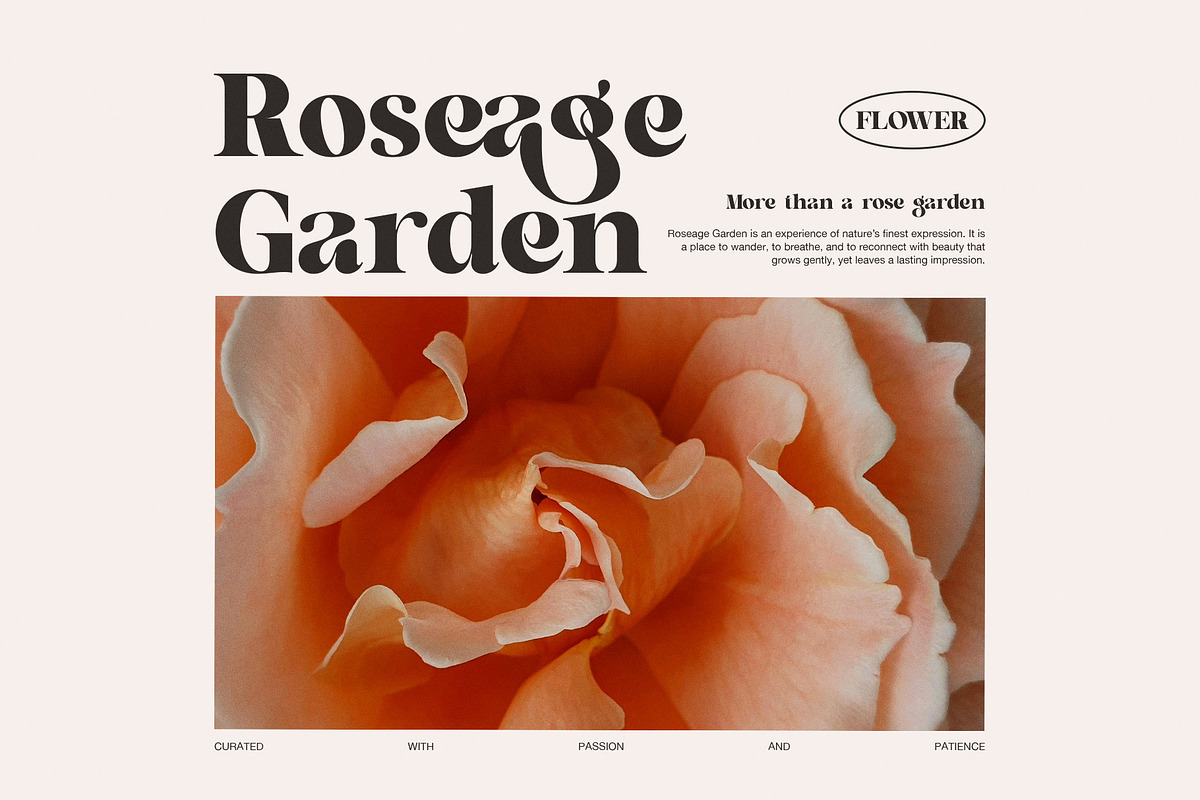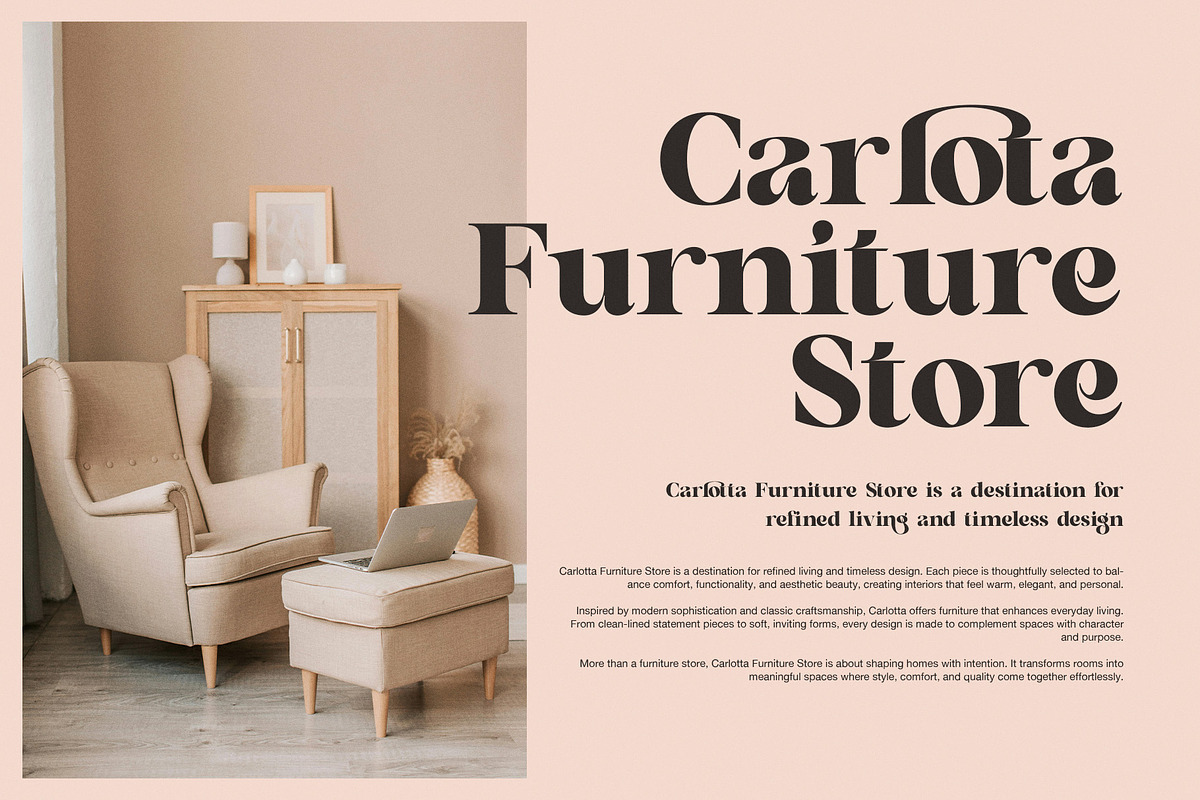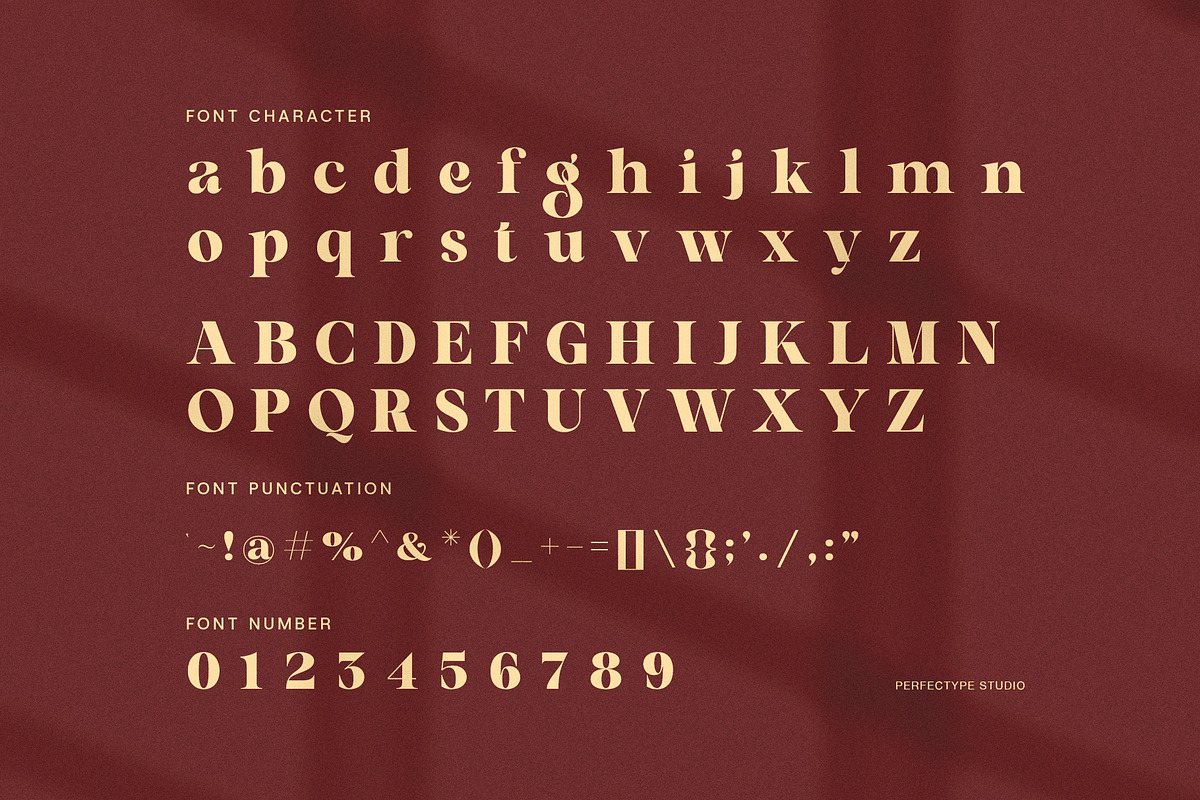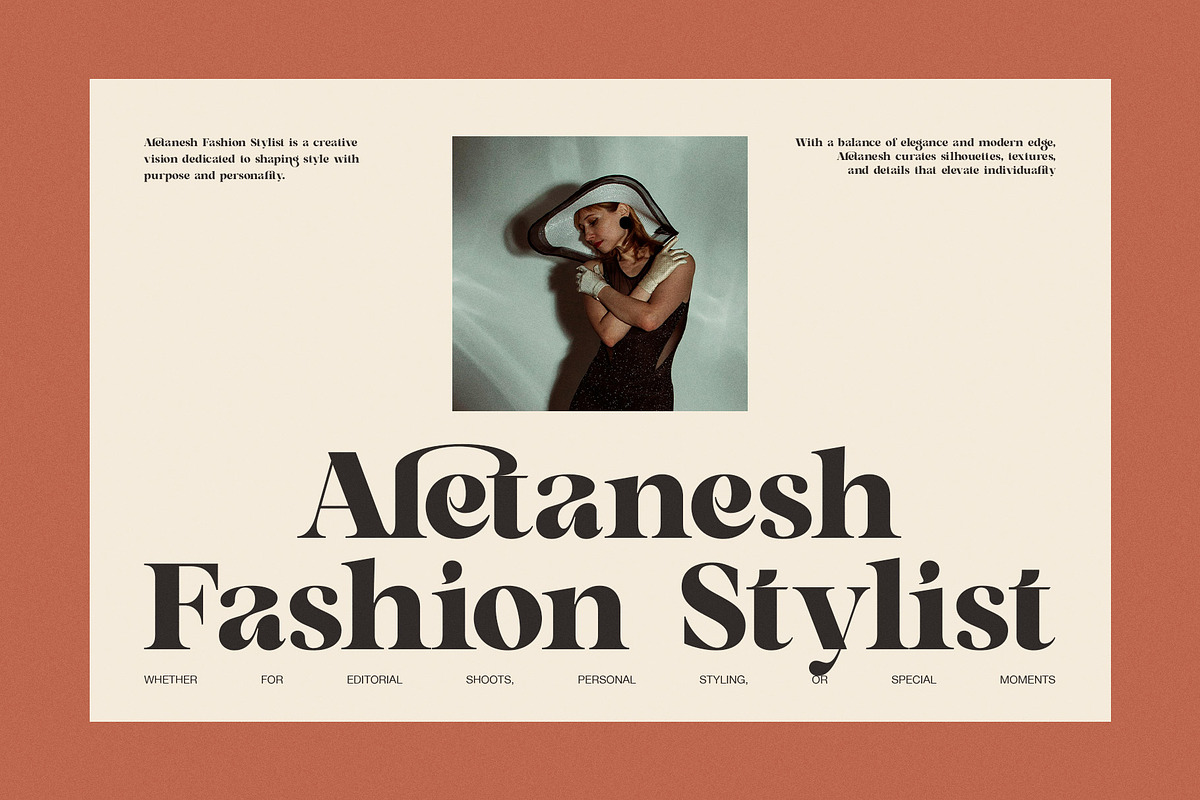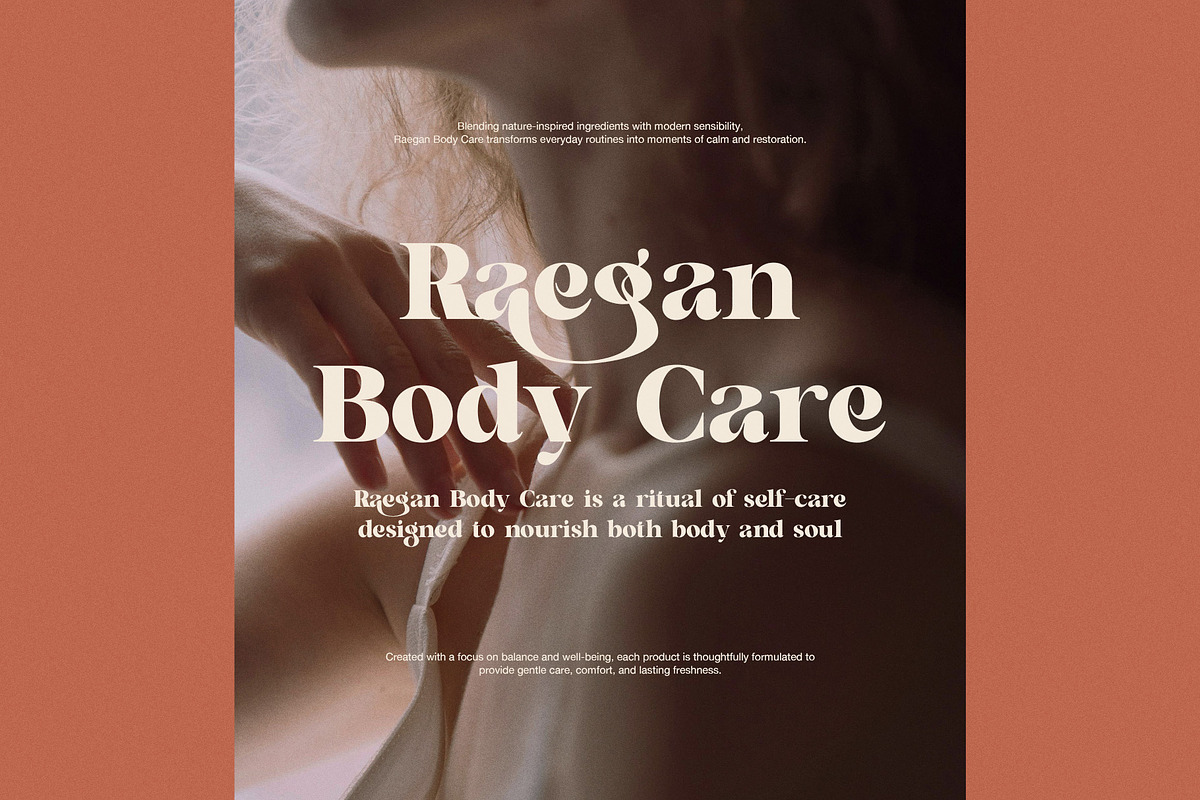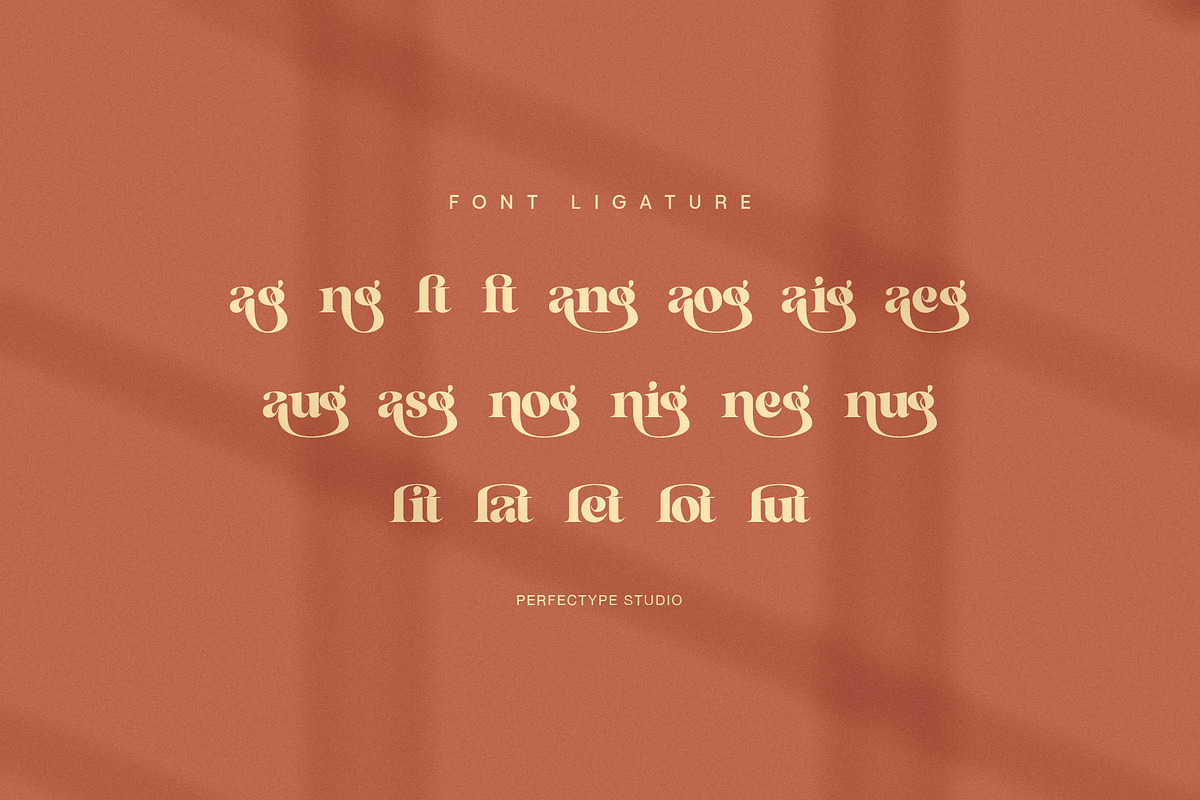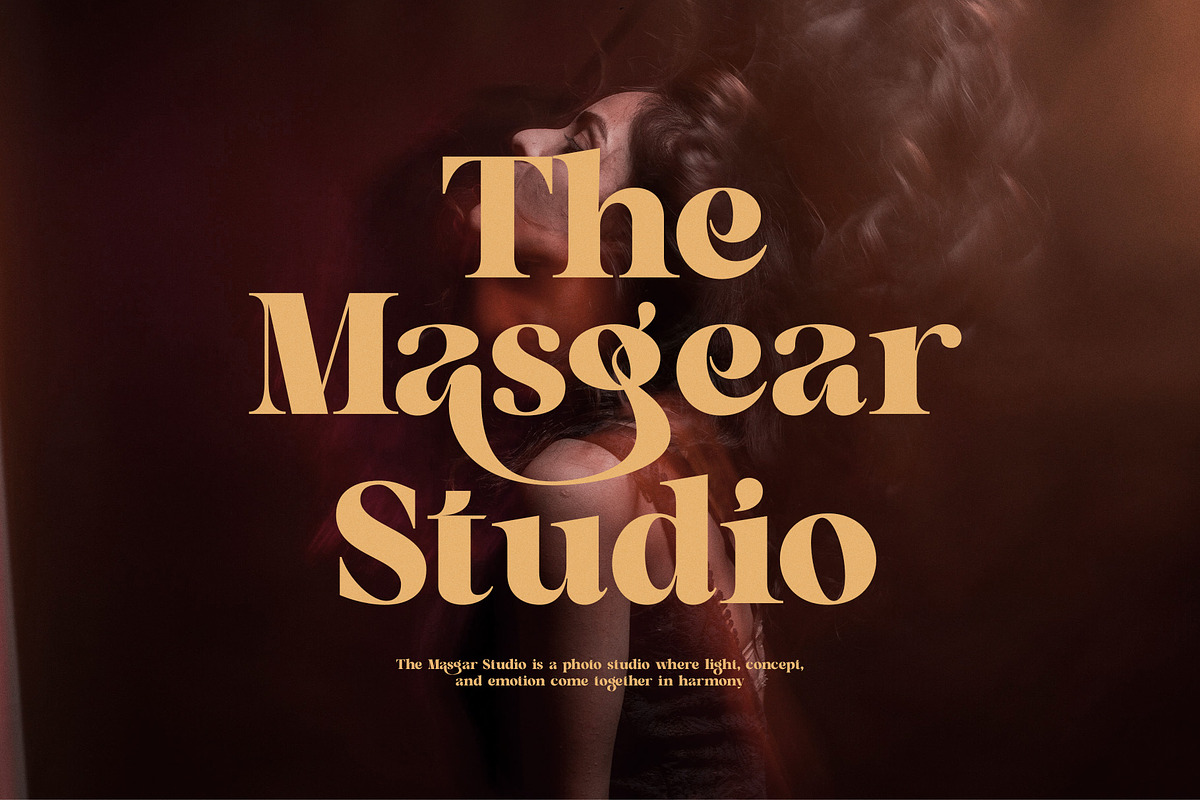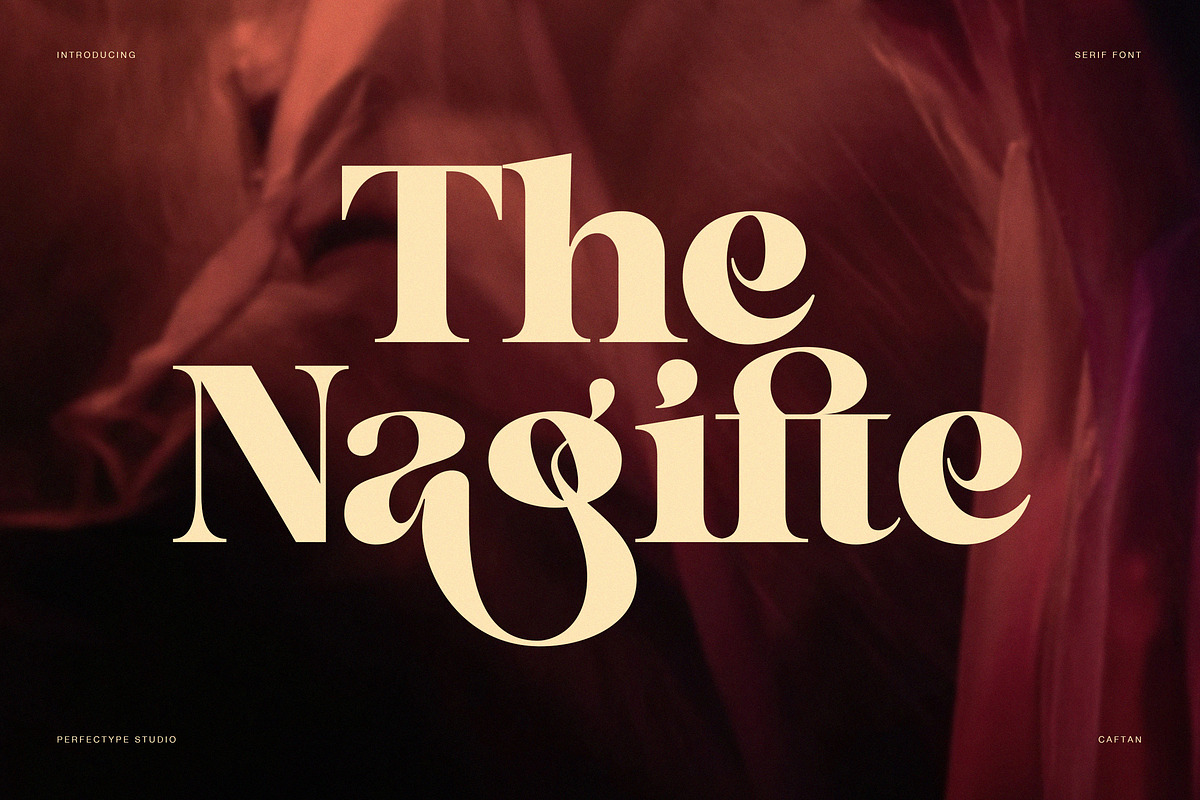
The Nagifte – Elegant Display Serif
The Nagifte Elegant Serif Font is a refined display serif designed to express warmth, emotion, and timeless beauty. From the very first glance, this font feels expressive yet balanced. Therefore, it becomes a strong choice for designers who want elegance without stiffness. With its smooth curves, graceful contrast, and soft terminals, Caftan creates a visual rhythm that feels both artistic and readable.
Moreover, The Nagifte was crafted to work beautifully in branding, editorial layouts, and lifestyle designs. Each letterform flows naturally, while the serif details add personality and charm. As a result, headlines feel luxurious, and short texts gain a sophisticated tone. In addition, the font includes carefully drawn ligatures and alternates that enhance visual storytelling without overwhelming the layout.
Because The Nagifte is versatile, it fits many creative needs. For example, it works perfectly for fashion branding, beauty products, floral packaging, wedding invitations, and premium social media graphics. At the same time, it performs well in magazines, lookbooks, and boutique websites. Therefore, designers can rely on one font for multiple purposes.
Another key strength of The Nagifte Elegant Serif Font is its balance between classic and modern design. While it draws inspiration from traditional serif forms, it feels fresh and current. Consequently, your designs will feel timeless rather than trendy. In addition, the spacing and proportions were refined to maintain clarity, even at large display sizes.
To help designers work faster, The Nagifte includes a complete character set, numbers, punctuation, ligatures, and stylistic alternates. As a result, you can explore creative typography without extra effort. Whether you are building a brand identity or crafting a statement headline, this font supports expressive design choices.
Why choose The Nagifte Elegant Serif Font?
Elegant serif style with smooth curves
Beautiful ligatures and alternates
Strong readability for display use
Ideal for branding, fashion, and editorial
Timeless look with a modern touch
Ultimately, The Nagifte Elegant Serif Font helps your designs feel personal, graceful, and memorable.